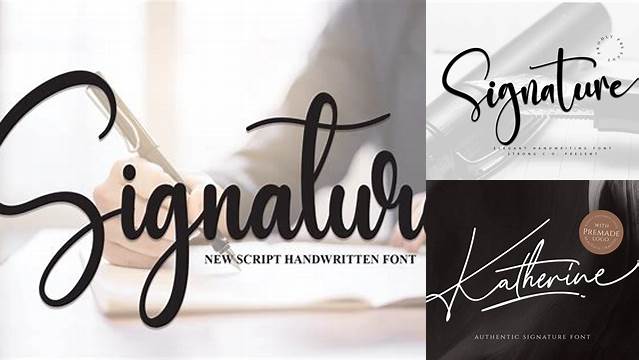
Signature Regular Font: Free Download Guide
Hey guys! Are you on the hunt for that perfect signature regular font to give your projects a personal touch? Look no further! In this guide, we're diving deep into the world of signature fonts, where to find them for free, and how to use them like a pro. We'll cover everything from the basics to the nitty-gritty details, ensuring you have all the info you need. So, let's get started and explore the fascinating realm of signature fonts!
What is Signature Regular Font?
Let's kick things off by understanding exactly what a signature regular font is. Simply put, it's a typeface designed to mimic the look of a handwritten signature. These fonts often feature elegant, flowing strokes and a personal touch, making them ideal for adding a sense of authenticity and warmth to your designs. Think of it as the digital equivalent of your own personal autograph! Whether you're working on branding materials, invitations, or website headers, a great signature font can really elevate your work. The key is to find one that reflects the right tone and style for your project. A signature regular font can instantly make your design feel more personal and approachable. They are often used in logos, business cards, and even social media graphics to add a handwritten feel. The best part? There are tons of options out there, so you can find one that perfectly matches your needs. You can use a signature regular font to add a unique touch to your brand identity. For example, if youβre a photographer, a signature font can be perfect for watermarking your images or designing your logo. It adds a touch of professionalism while maintaining a personal connection. So, next time you're working on a project that needs a touch of personality, remember the power of a well-chosen signature regular font.
Why Use a Signature Font?
Now, you might be wondering, "Why should I even bother with a signature regular font?" Well, there are tons of reasons! For starters, these fonts add a personal and unique touch to your projects, setting them apart from the crowd. They can evoke feelings of warmth, authenticity, and creativity, making your message more engaging and memorable. Imagine using a generic, blocky font for your wedding invitations versus a beautiful, flowing signature font β the difference is night and day! Using a signature regular font can also help to reinforce your brand identity. If you consistently use the same font across all your materials, it creates a cohesive and recognizable look. Think about some of the most successful brands β many of them use signature-style fonts in their logos and marketing materials. It's a simple yet effective way to stand out. Moreover, a signature regular font can be incredibly versatile. They're not just for fancy invitations or logos; they can be used in a variety of applications, from website headers to social media graphics. The key is to choose a font that suits the tone and style of your project. So, whether you're looking to add a personal touch, strengthen your brand, or simply create something beautiful, a signature regular font might just be the perfect solution.
Signature Fonts for Personal Use
So, you're working on a personal project and need a signature regular font? Awesome! There are tons of fantastic options out there that are perfect for adding a touch of personality to your non-commercial endeavors. Whether you're designing invitations for a birthday party, creating a scrapbook page, or just want to add a unique flourish to your personal blog, a signature font can make all the difference. When choosing a font for personal use, you have a lot of flexibility. You can go for something elegant and flowing, something playful and quirky, or something modern and minimalist β whatever suits your style and the project at hand. Just make sure to check the font's license to ensure it's indeed free for personal use. Many free font websites clearly indicate the license type, making it easy to find options that fit your needs. Some popular choices for personal use include handwritten-style fonts that mimic natural handwriting, script fonts with beautiful swashes and ligatures, and even monoline fonts for a clean and contemporary look. Don't be afraid to experiment and try out different fonts to see what works best. Remember, the goal is to add a personal touch, so choose a signature regular font that you love and that reflects your unique style. So go ahead, get creative, and let your personality shine through with the perfect font!
Signature Fonts for Commercial Use
Now, let's talk about using a signature regular font for commercial projects. This is where understanding font licensing becomes super important! If you're using a font in any project that generates income, you'll need a commercial license. This could be anything from designing a logo for a client to creating marketing materials for your business. Using a font without the proper license can lead to legal trouble, so it's always best to play it safe. When choosing a signature regular font for commercial use, there are a few things to keep in mind. First, make sure the font is legible and professional-looking. While a quirky or overly stylized font might be fun for personal projects, it might not be the best choice for a business context. You want a font that conveys credibility and professionalism. Second, consider the font's versatility. Will it work well in a variety of applications, from print to web? Can it be easily paired with other fonts? A versatile font will give you more flexibility in your designs. Finally, be sure to carefully read the font's commercial license agreement. This will spell out exactly what you're allowed to do with the font, including things like embedding it in documents or websites, using it in logos, and selling products with the font. So, when it comes to commercial use, take the time to do your research and choose a signature regular font that not only looks great but also has the appropriate license for your needs.
Best Free Signature Fonts for Logos
Creating a logo? A signature regular font can be an excellent choice for giving your brand a personal and memorable touch. But with so many options out there, how do you choose the best free signature font for your logo? First, consider the overall style and personality of your brand. Are you aiming for something elegant and sophisticated? Or perhaps something more playful and approachable? The font you choose should reflect your brand's identity. For a classic and elegant logo, consider a script font with flowing lines and beautiful swashes. Fonts like "Great Vibes" or "Pacifico" can add a touch of sophistication and grace. If you're looking for something more modern and minimalist, a monoline signature font might be a good fit. These fonts have a clean and contemporary look that can work well for a variety of brands. Fonts like "Playlist Script" or "Lemon Tuesday" offer a stylish yet understated feel. Another important factor is legibility. Your logo font needs to be easily readable, even at small sizes. Avoid fonts that are too ornate or have overly complex details. Test your font in different sizes and applications to make sure it remains clear and legible. Finally, don't be afraid to experiment and try out different fonts. Mix and match fonts to see what works best for your logo. And remember, even if a font is free, it should still look professional and polished. A well-chosen signature regular font can make your logo stand out and create a lasting impression.
So, there you have it, guys! A deep dive into the world of signature regular fonts. We've covered everything from what they are and why you should use them, to where to find them for free, how to install them, and how to use them effectively in your designs. We've also explored the importance of font licensing, common mistakes to avoid, and even the future trends in signature fonts. Hopefully, this guide has given you all the knowledge and inspiration you need to start using signature fonts like a pro. Remember, a well-chosen signature font can add a personal touch, elevate your brand, and create designs that are both stylish and engaging. So, go ahead, experiment with different fonts, and find the perfect signature regular font to bring your creative vision to life. Happy designing!